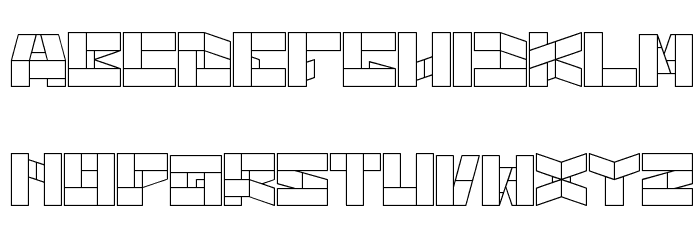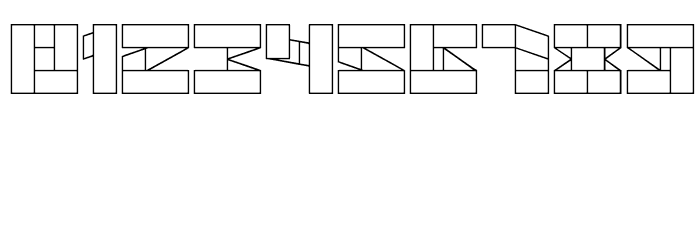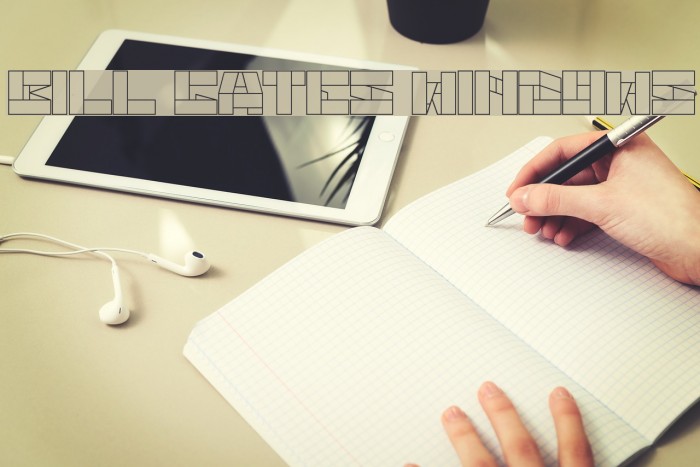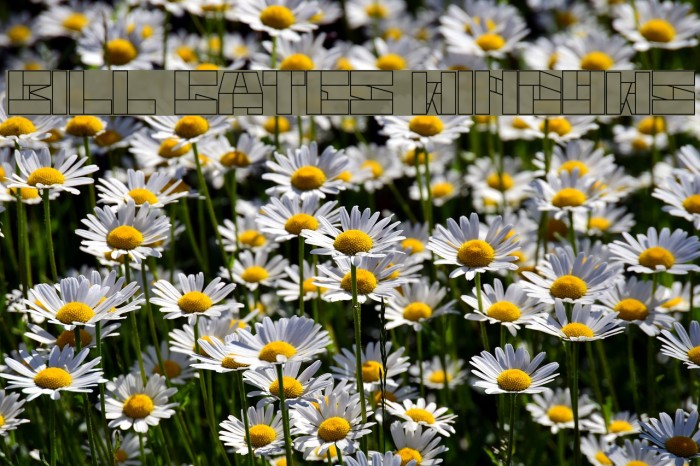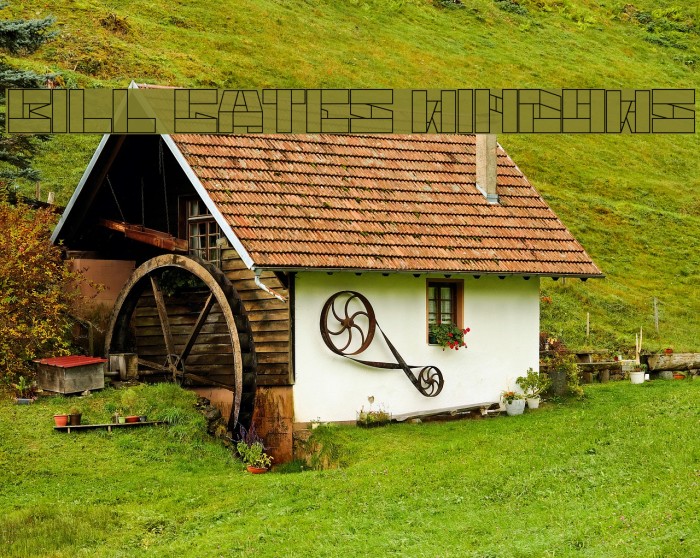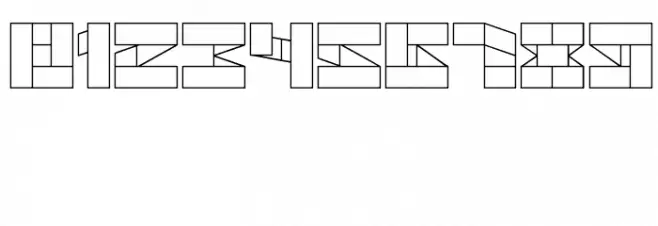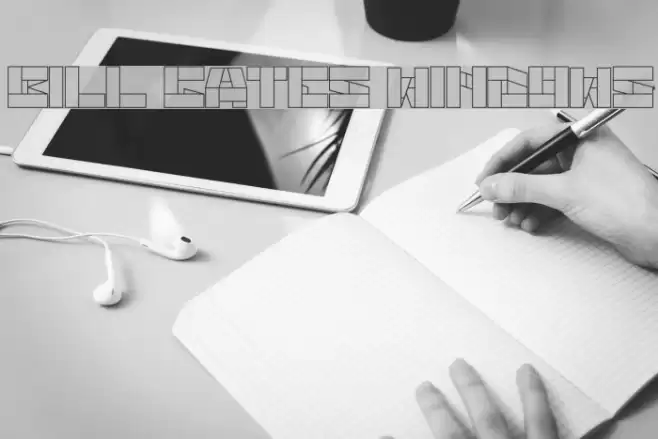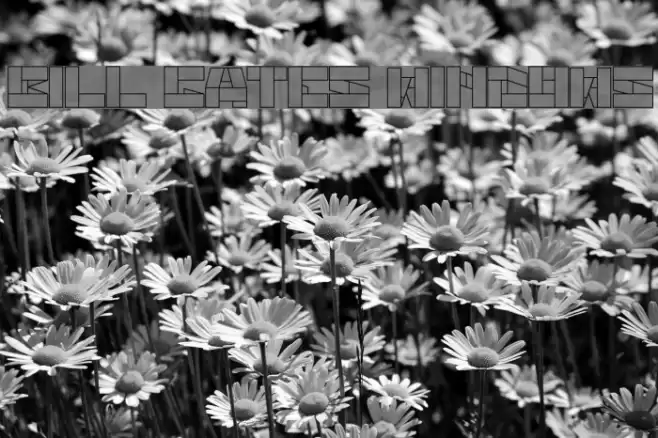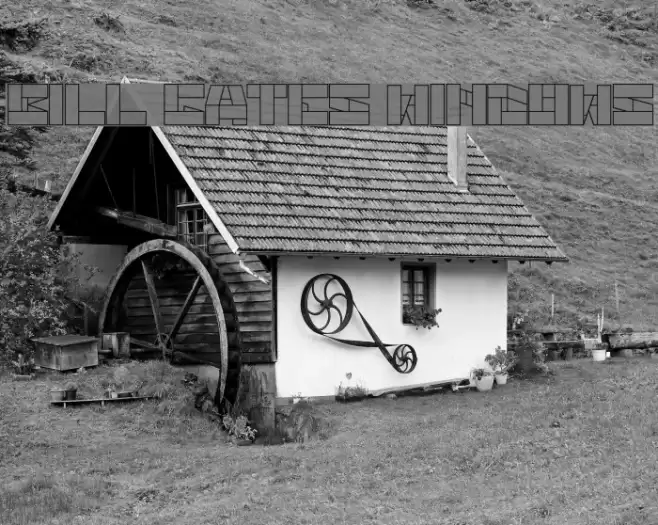
bill gates windows Font
This font features a bold, geometric design with a futuristic and digital aesthetic. The characters are constructed using a series of straight lines and sharp angles, creating a blocky and modular appearance. The uppercase letters are particularly striking, with a strong presence and a sense of solidity. The lowercase letters maintain the same geometric style, ensuring consistency throughout the typeface. Numbers and special characters are also designed to match the overall theme, making this font versatile for various applications. The use of negative space within the characters adds an intriguing visual element, enhancing the modern and tech-inspired look.
A bold, geometric font with a futuristic and digital aesthetic.
- Proposed Projects: Ideal for tech branding, digital art projects, video game interfaces, and futuristic-themed designs.
- Overall Style: Futuristic